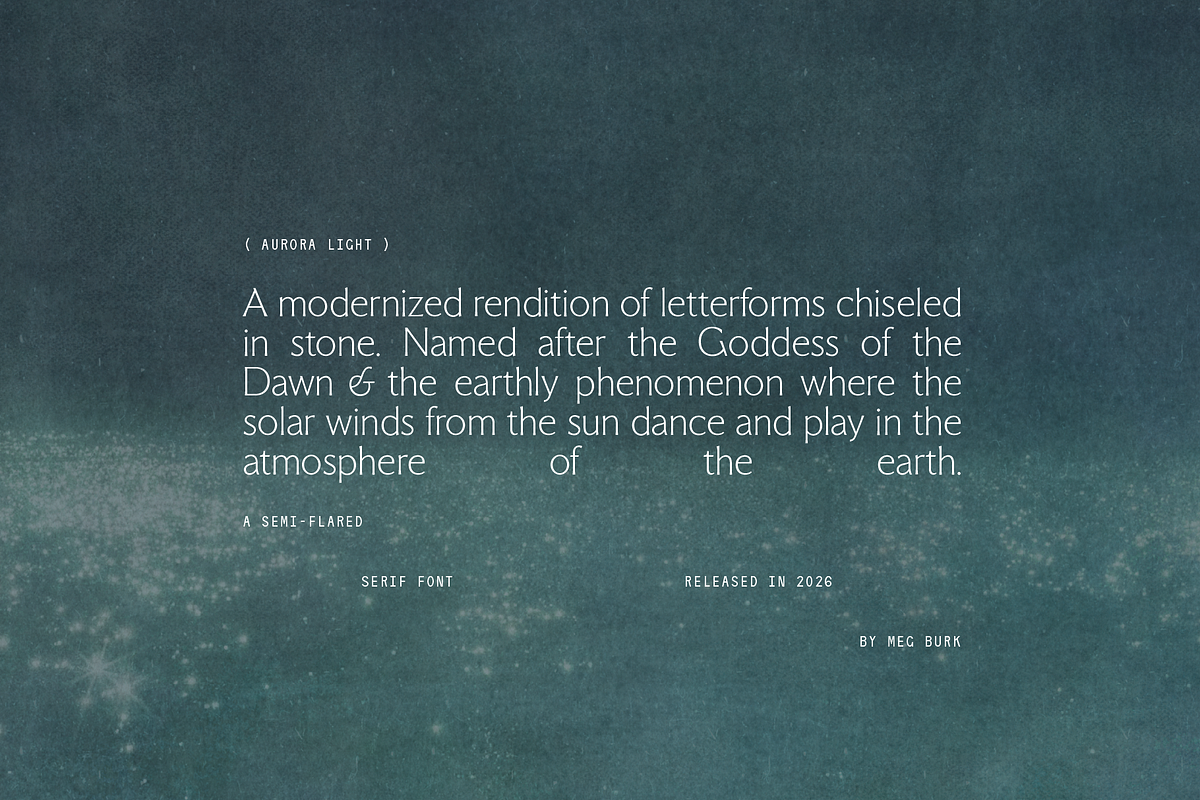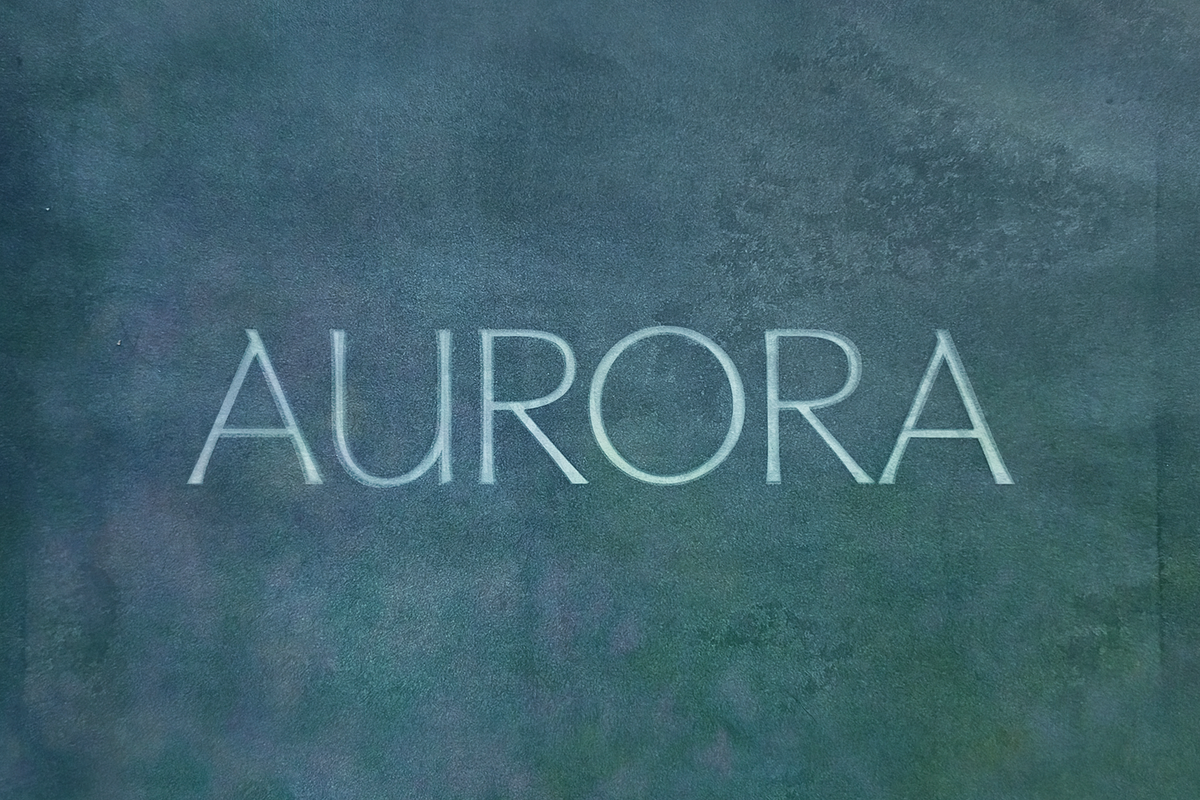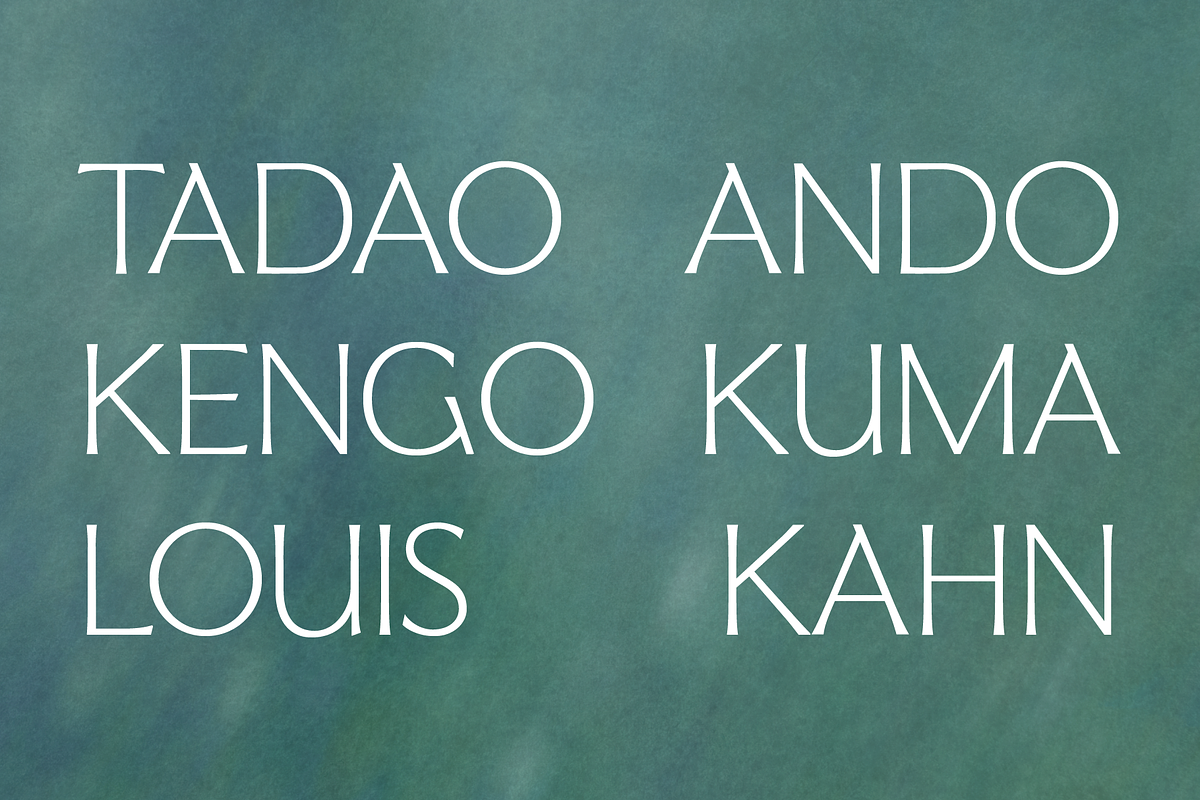
AURORA - Modern Roman-inspired Serif
A modernized rendition of letterforms chiseled in stone. Named after the Goddess of the Dawn & the earthly phenomenon where the solar winds from the sun dance and play in the atmosphere of the earth.
There's something delightful about the juxtaposition of rigidity and fluidity existing simultaneously. In this typeface, the regular style is a modernized approach to a classic Roman-style serif; of letterforms hewn in marble and other stones. But in the modern age, some designs call for accent font styles, and many Roman-styled fonts have no italics, or obliques. This is where I took the artistic liberty to design calligraphic italics to match the base font. A higher-than normal x-height brings the entire collection into a modern era. The confident flares serifs of the regular style are steady and assured, allowing the italics to add softness and a creative hand.
In naming and concepting this font, I was really drawn to the idea of the sun itself INTERACTING with earth, in a way. I explored
concepts of photosynthesis - how the plants fuel themselves on the sun's rays.
In my exploration, I thought about the Aurora Borealis (I do, after all, have a tattoo of them) - and how it is the sun, from so far away, dancing, playing, in the Earth's atmosphere. How their meeting is vibrant, colorful, and captivating.
This concept stuck. It's the intersection of two things, creating a unique and beautiful display.
May Aurora in its regular and italic forms delight your designs as much as humans delight in the colors of the Auroras.
A roman-inspired, chiseled flared semi serif font with a higher raised x-height that feels a little more playful and unexpected. Perfect for fashion brands, editorial designs, architecture firms, and other design forward aspects, or whatever you design and come up with.